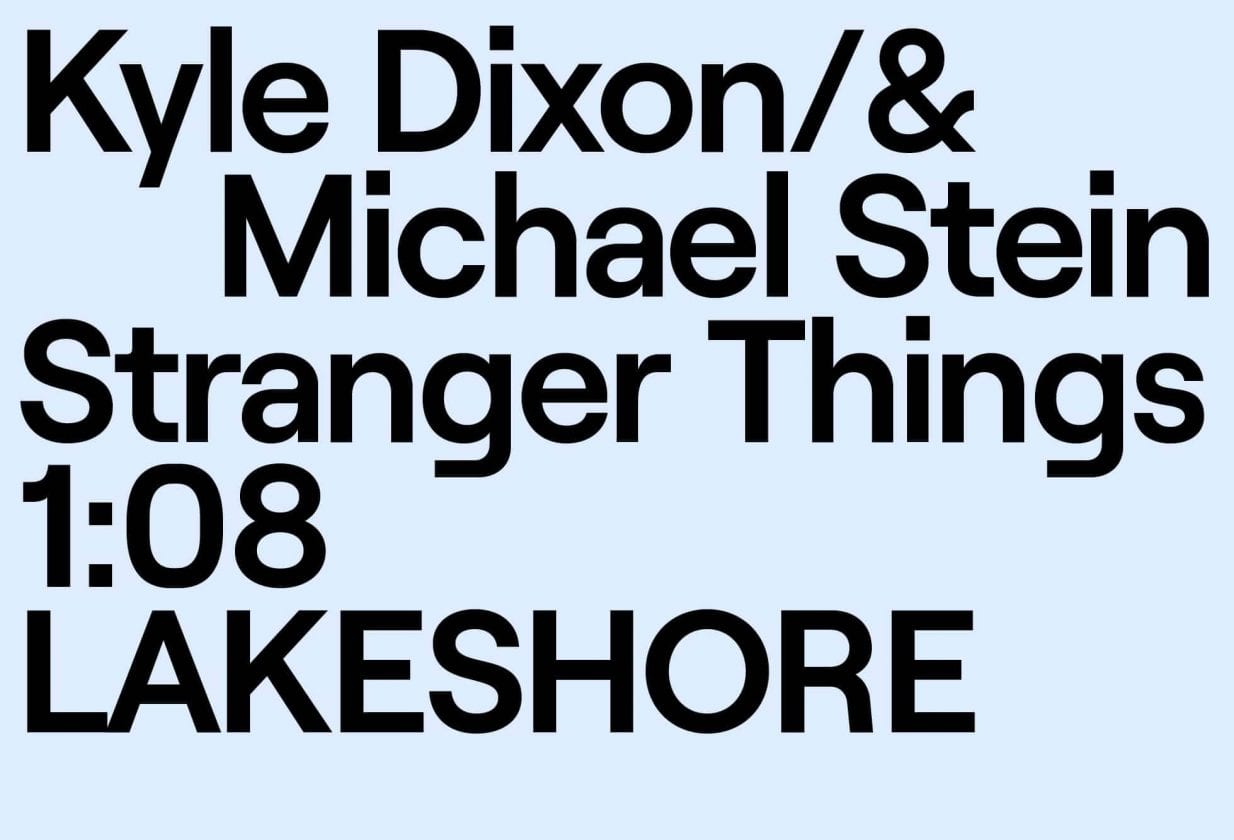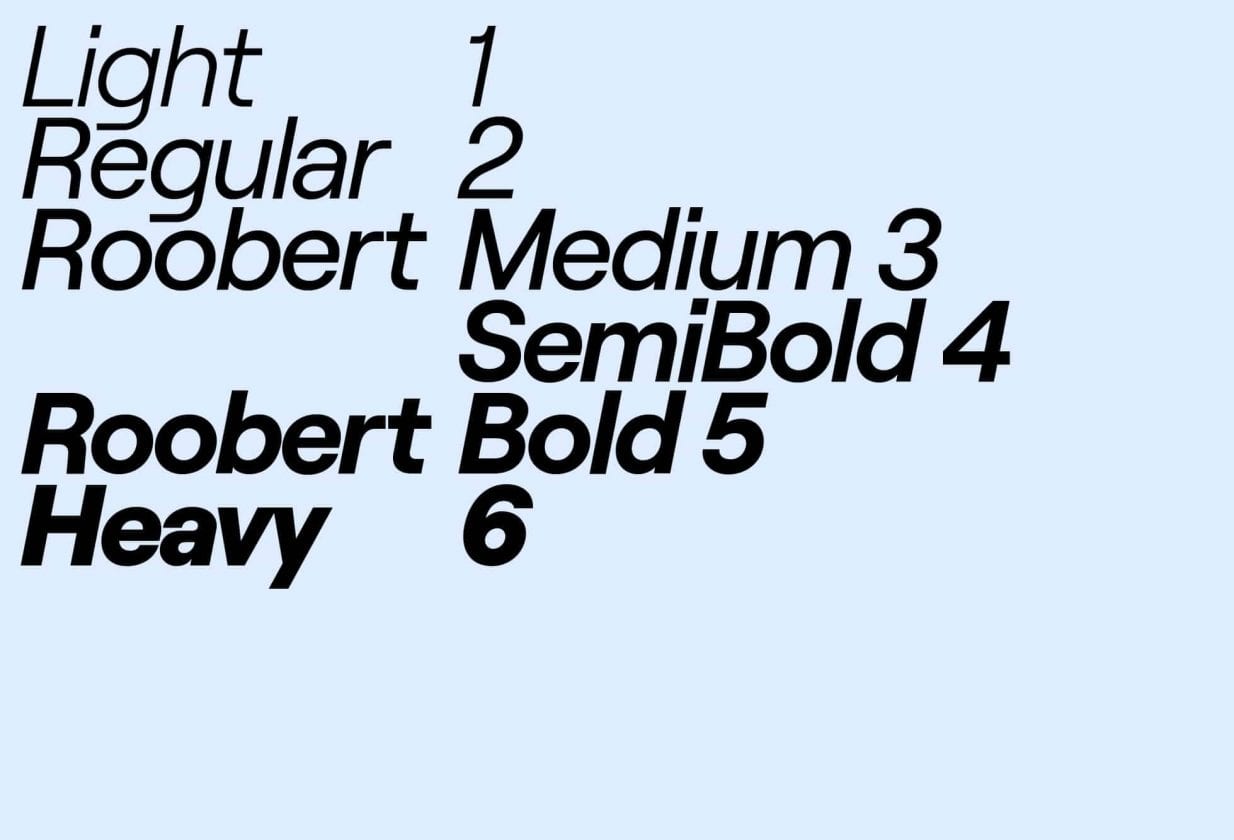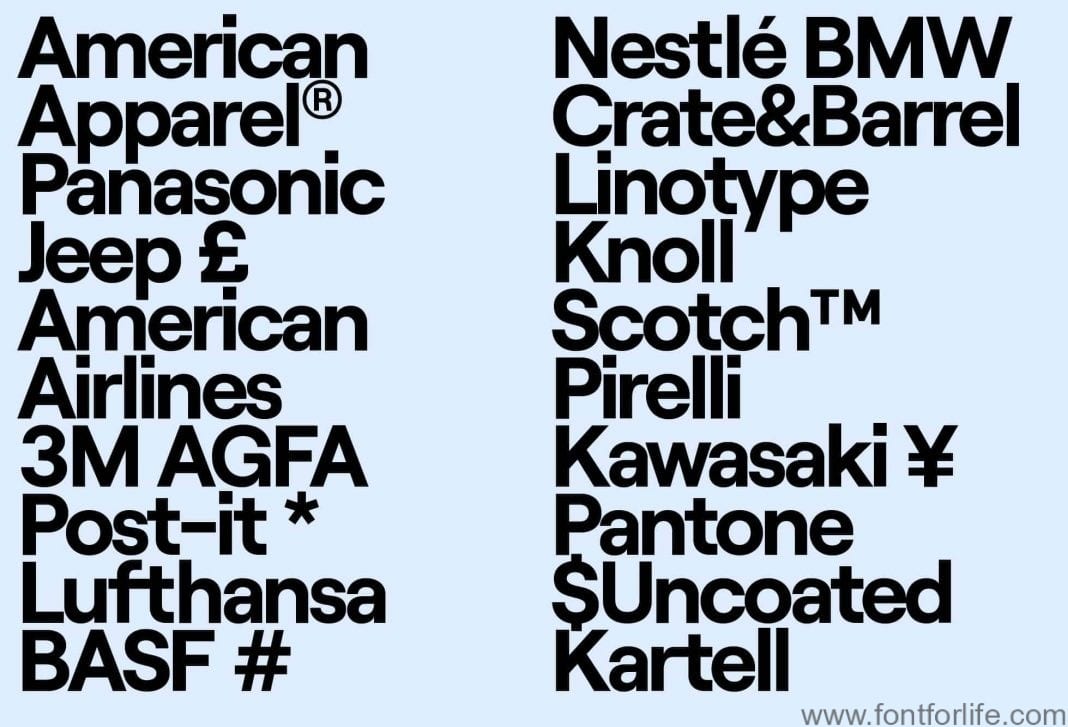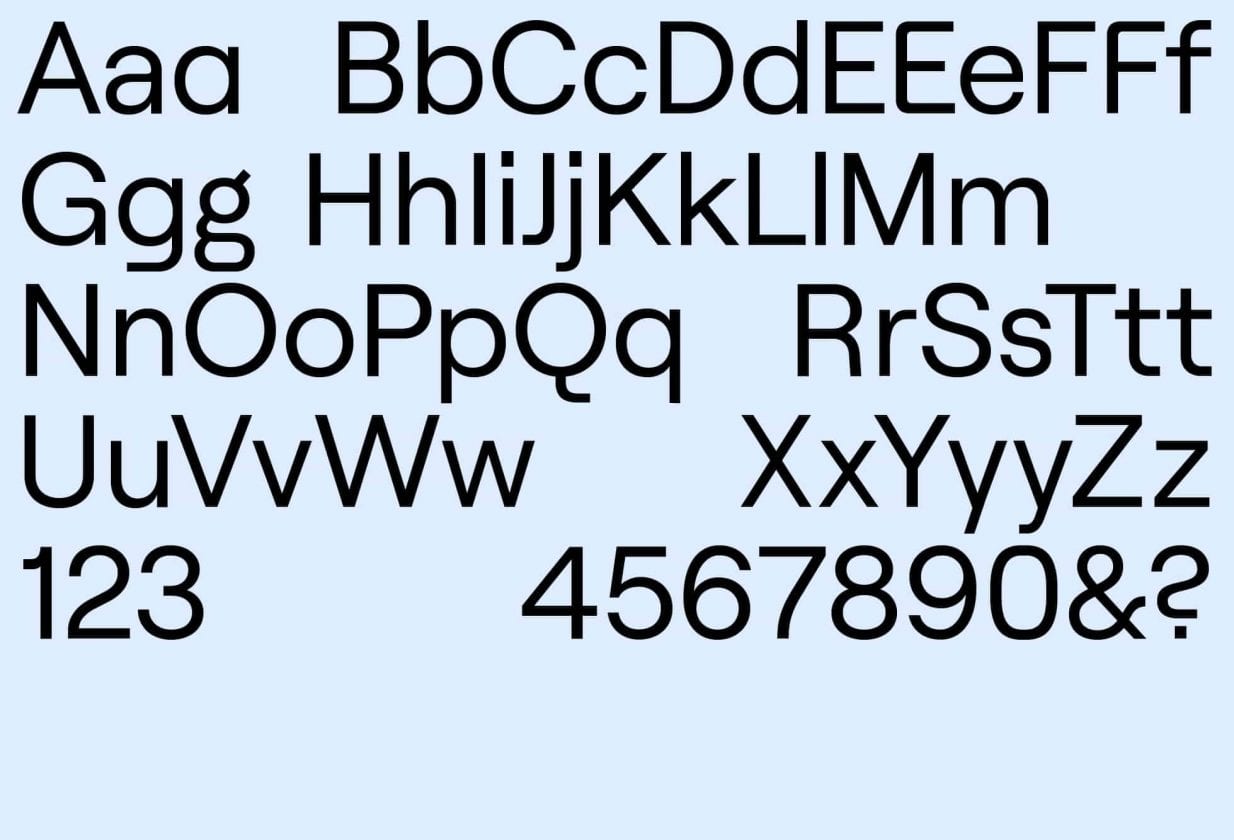
Roobert Font Family
Roobert Font Family - First created for the 2017. Robert font family is a modern sans serif typeface designed to cope with modern and harmonious design. Roobert font family series mainly provide medium and other font styles. Roobert font family is a modern sans serif type face, designed to cope with modern and harmonious design.
First created for the 2017. Robert font family is a modern sans serif typeface designed to cope with modern and harmonious design. Roobert font family series mainly provide medium and other font styles. Roobert font family is a modern sans serif type face, designed to cope with modern and harmonious design.
First created for the 2017. Robert font family is a modern sans serif typeface designed to cope with modern and harmonious design. Roobert font family is a modern sans serif type face, designed to cope with modern and harmonious design. Roobert font family series mainly provide medium and other font styles.
Roobert Font Family
Roobert font family series mainly provide medium and other font styles. First created for the 2017. Robert font family is a modern sans serif typeface designed to cope with modern and harmonious design. Roobert font family is a modern sans serif type face, designed to cope with modern and harmonious design.
Roobert Font Family
First created for the 2017. Roobert font family series mainly provide medium and other font styles. Robert font family is a modern sans serif typeface designed to cope with modern and harmonious design. Roobert font family is a modern sans serif type face, designed to cope with modern and harmonious design.
Roobert font family is a modern sans serif type face, designed to cope with modern and harmonious design. Roobert font family series mainly provide medium and other font styles. First created for the 2017. Robert font family is a modern sans serif typeface designed to cope with modern and harmonious design.
Roobert Font Family
Robert font family is a modern sans serif typeface designed to cope with modern and harmonious design. Roobert font family is a modern sans serif type face, designed to cope with modern and harmonious design. First created for the 2017. Roobert font family series mainly provide medium and other font styles.
First created for the 2017. Robert font family is a modern sans serif typeface designed to cope with modern and harmonious design. Roobert font family series mainly provide medium and other font styles. Roobert font family is a modern sans serif type face, designed to cope with modern and harmonious design.
First created for the 2017. Roobert font family series mainly provide medium and other font styles. Roobert font family is a modern sans serif type face, designed to cope with modern and harmonious design. Robert font family is a modern sans serif typeface designed to cope with modern and harmonious design.
Roobert font family series mainly provide medium and other font styles. Robert font family is a modern sans serif typeface designed to cope with modern and harmonious design. First created for the 2017. Roobert font family is a modern sans serif type face, designed to cope with modern and harmonious design.
Roobert font family is a modern sans serif type face, designed to cope with modern and harmonious design. Robert font family is a modern sans serif typeface designed to cope with modern and harmonious design. Roobert font family series mainly provide medium and other font styles. First created for the 2017.
Roobert Font Family Free Download Font Luxe
Roobert font family is a modern sans serif type face, designed to cope with modern and harmonious design. First created for the 2017. Roobert font family series mainly provide medium and other font styles. Robert font family is a modern sans serif typeface designed to cope with modern and harmonious design.
Roobert Font Free Download Font Pearl
Roobert font family is a modern sans serif type face, designed to cope with modern and harmonious design. First created for the 2017. Robert font family is a modern sans serif typeface designed to cope with modern and harmonious design. Roobert font family series mainly provide medium and other font styles.
Roobert Font Family Series Mainly Provide Medium And Other Font Styles.
Robert font family is a modern sans serif typeface designed to cope with modern and harmonious design. Roobert font family is a modern sans serif type face, designed to cope with modern and harmonious design. First created for the 2017.